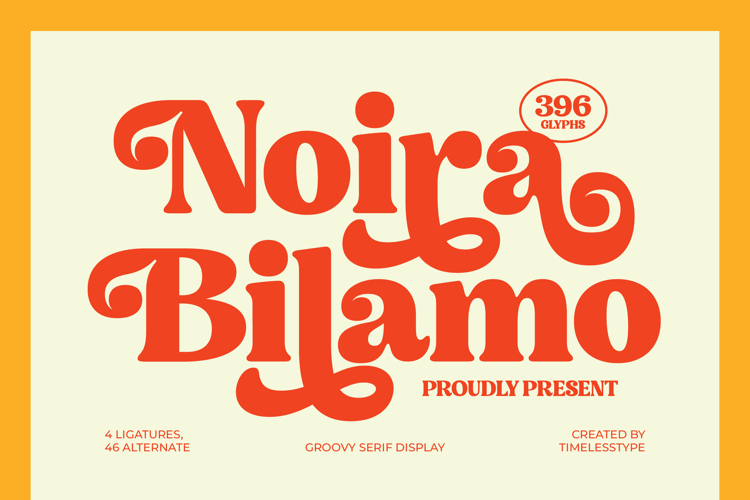
Noira Bilamo - Groovy Serif Display
Step into a world of vibrant nostalgia and sophistication with Noira Bilamo - Groovy Serif Display, a truly captivating typeface designed to make an instant impact. This unique display serif embodies the irresistible charm of vintage aesthetics, reimagined for contemporary design. Its bold, fluid letterforms and inviting curves exude warmth and personality, ensuring your designs resonate with a distinctive, memorable voice.
Noira Bilamo - Groovy Serif Display offers unparalleled creative flexibility, featuring beautifully rounded serifs, elegant swashes, 4 ligatures, and 46 alternates. This font is perfect for crafting eye-catching headlines, luxury branding, editorial layouts, packaging design, and engaging social media graphics. It's ideal for projects demanding a touch of retro elegance and modern flair, providing a rich visual language for your concepts.
With its extensive multilingual support, Noira Bilamo - Groovy Serif Display adapts seamlessly across global markets, making it incredibly versatile for international projects. Ensuring your message transcends linguistic barriers, its expansive character set maintains visual integrity across diverse content. Elevate your professional toolkit with a font that speaks to a worldwide audience, delivering impactful communication every time.